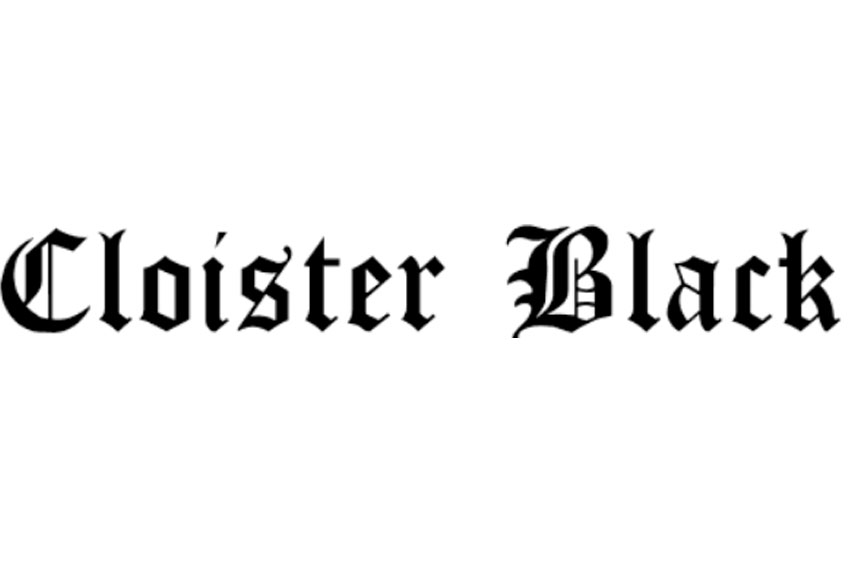
Cloister Black Font
Cloister Black Font is suitable for flyers, posters, novels, letterheads, or any design requirements that you want to be awesome.
It will certainly amaze your readers.